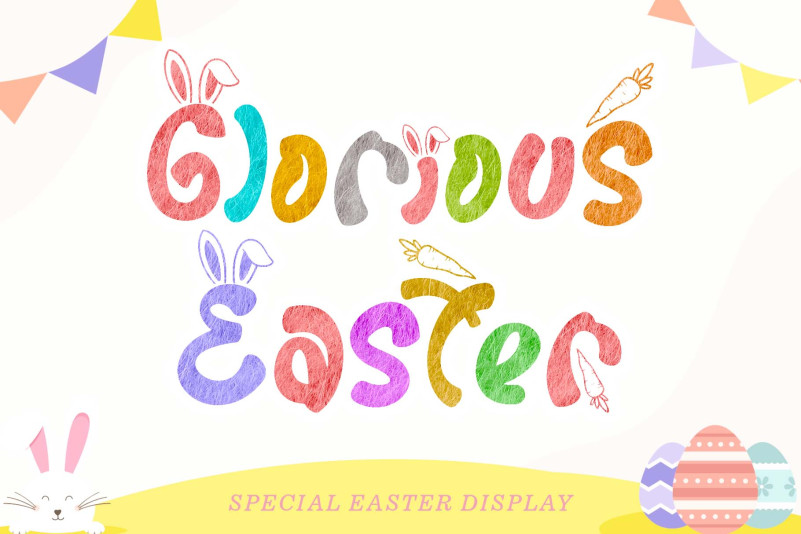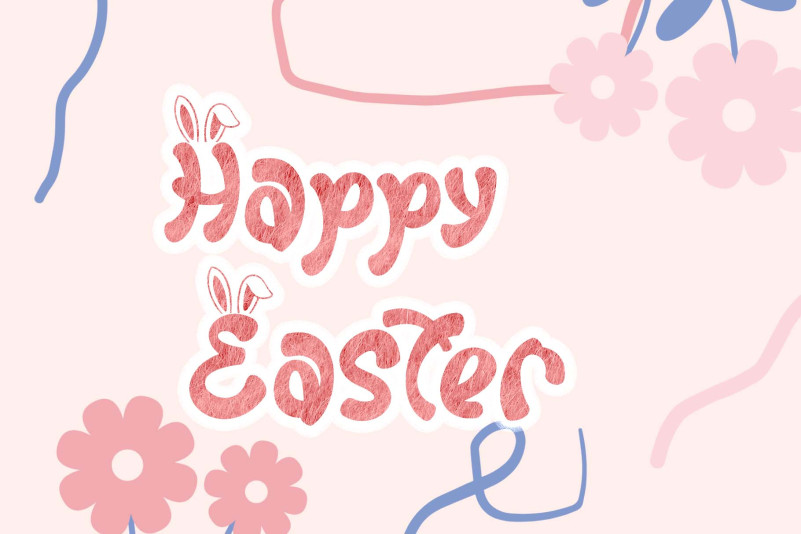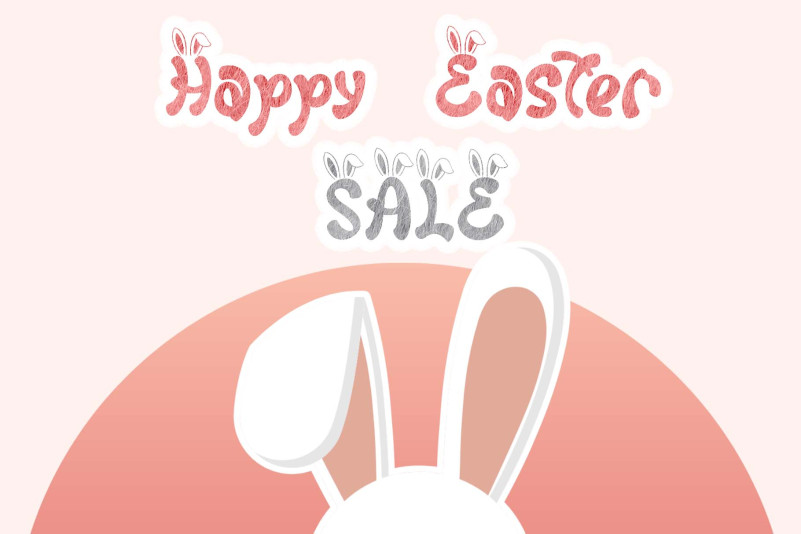
Glorious Easter Font
Glorious Easter Font is a unique and cute display font with an easter theme. This font is decorated with cute bunny ears and also a carrot, making it a perfect fit for lots of design ideas. Keep in mind that the font is PUA encoded, meaning that you can access all delightful glyphs and swashes effortlessly.